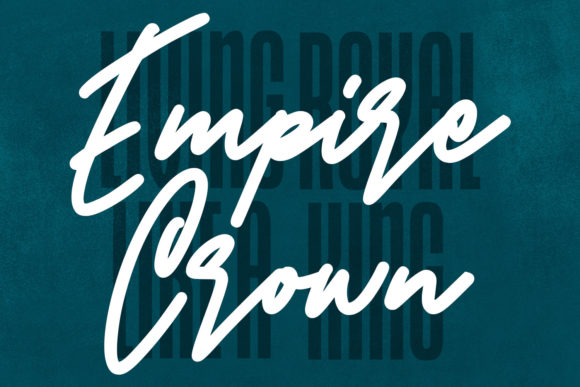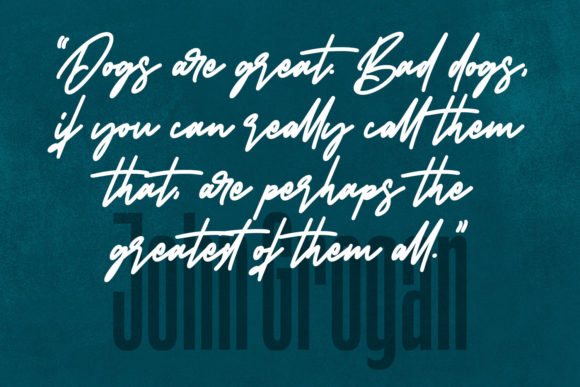
Styxes Font
db-ku.com - Script & Handwritten -- Styxes is an expressive signature script and sans font duo. It features clean and condensed strokes, fun characters, ligatures and alternates. Add it confidently to your favorite creations and let yourself be amazed by the outcome generated.